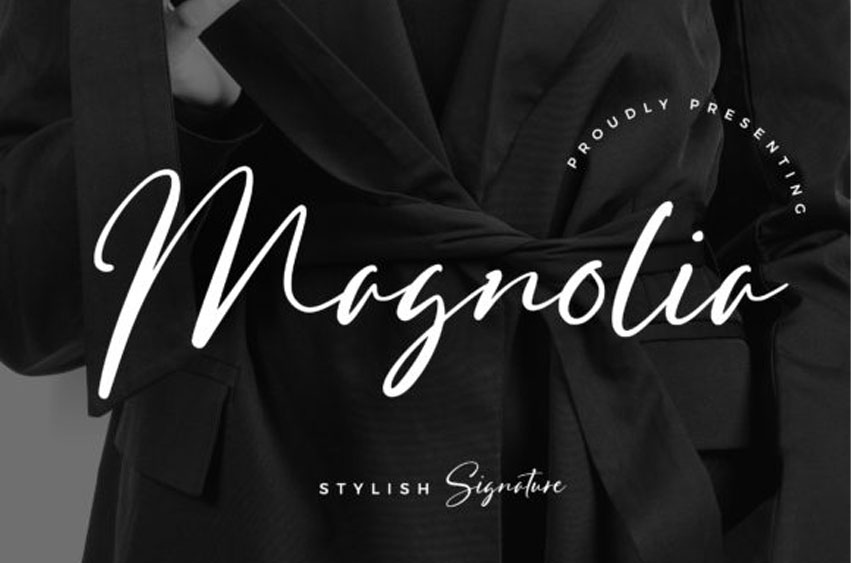
Magnolia Stylish Font
Magnolia Stylish Font is a relaxed and timeless handwritten font.
It looks stunning on wedding invitations, thank you cards, quotes, greeting cards, logos, business cards and every other design which needs a handwritten touch.